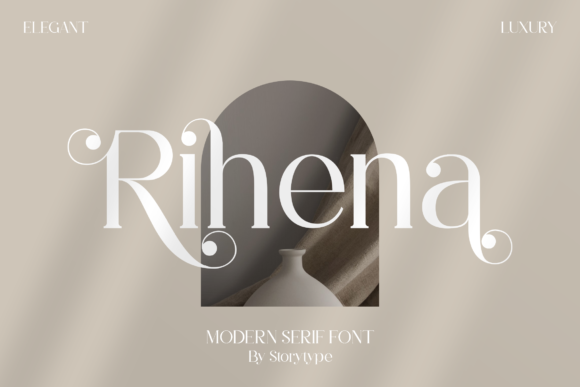
Introducing Rihena Font - a captivating serif font with an enthralling blend of modernity and classic elegance. This stunning creation by Storytype Studio is a masterpiece that will leave you spellbound with its distinctive style and contemporary allure. Immerse yourself in the realm of artistic expression, as Rihena's graceful curves and sharp edges dance together, whispering tales of sophistication and timeless beauty.
Unleash your creativity with Rihena, the ultimate font for crafting exquisite logos that exude elegance. Let your brand's identity shine with a touch of luxury, as Rihena's refined lines and captivating presence command attention and evoke an air of distinction. This font is a true gem for creating captivating book or movie titles that transport readers and viewers to enchanting worlds. Its timeless charm will elevate your designs, leaving a lasting impression that lingers in the minds of your audience.
Adorn your fashion brand with Rihena's allure, as its delicate strokes and flowing lines bring a touch of sophistication to your designs. Capture the essence of exclusivity and style, as Rihena enhances your creations with a touch of timeless grace. Whether it's a magazine layout, clothing designs, or enchanting lettering, Rihena effortlessly elevates each project, transforming them into captivating works of art.
With Rihena, quotes come alive with an emotional resonance that captivates readers. Its graceful strokes and alluring curves lend a touch of elegance to your words, allowing them to dance across the page with a life of their own. Experience the transformative power of Rihena, as it breathes new life into your designs, turning ordinary text into expressions of beauty and eloquence.
Rihena's OpenType features elevate your creative potential to new heights, offering a diverse range of styles, including stylistic alternates, ligatures, and swashes. Seamlessly switch between these options to achieve a truly personalized look, adding depth and dimension to your designs.
Rihena Font is a treasure trove of creativity, allowing you to explore a world of endless possibilities. Its versatility knows no bounds, making it the perfect choice for an array of projects. Whether you're a seasoned designer or just starting your creative journey, Rihena will be your trusted companion, guiding you towards stunning designs that leave a lasting impression.
Embrace the allure of Rihena Font and watch your creations blossom into masterpieces. Its timeless beauty and captivating style will transform your designs, leaving your audience spellbound. Experience the magic of Rihena and unlock the gateway to a world of boundless creativity.